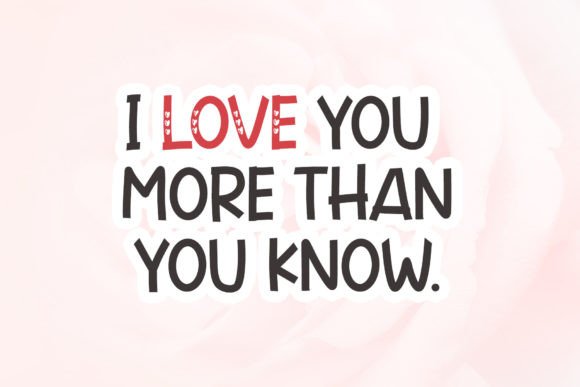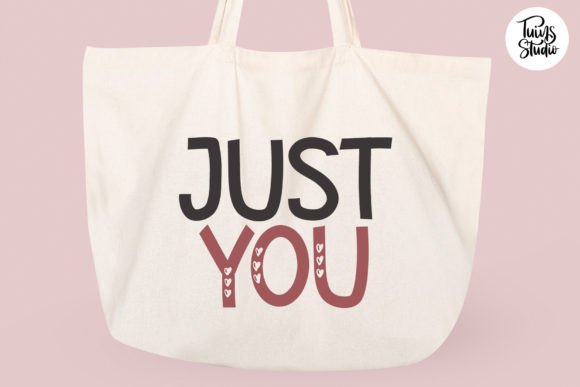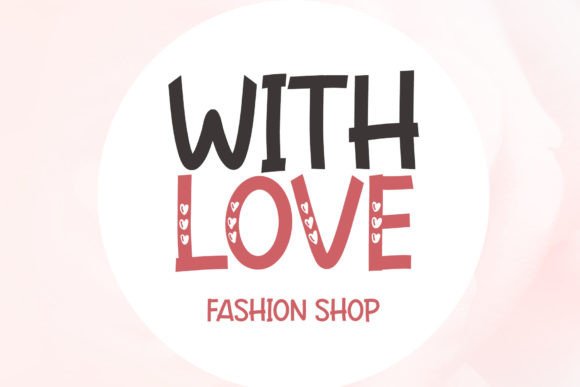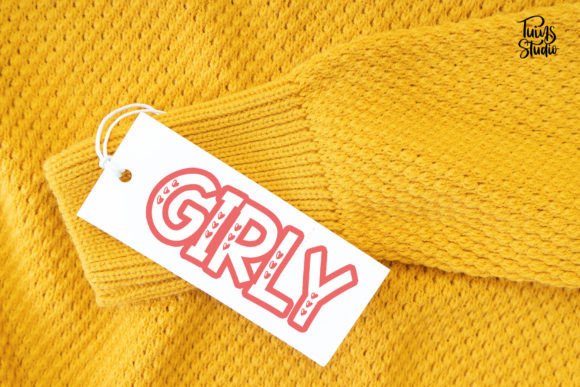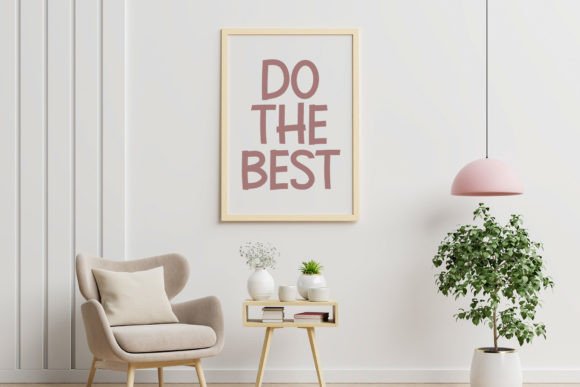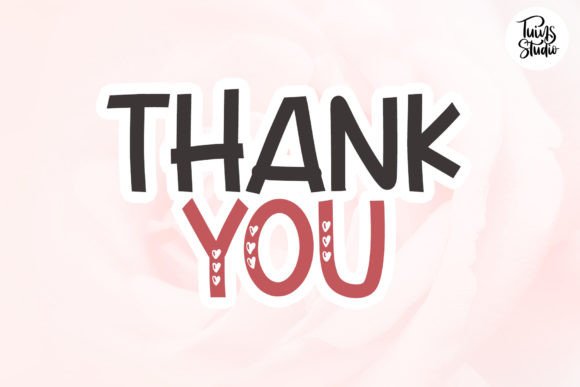
Introduction to Right Love Font
Have you ever stumbled upon the perfect font for a creative project, only to have it transform your entire design from ordinary to extraordinary? That’s exactly what the Right Love Font does – it brings a touch of whimsy and charm to any project, making it truly special. Whether you’re a seasoned designer or a crafty DIY enthusiast, this lovely font is sure to become a go-to design resource.
With its high-quality design and transparent background, the Right Love Font is perfect for a wide range of creative projects, from kids’ crafts and logos to greeting cards and packaging design. Its versatility and playfulness make it an invaluable asset for designers looking to add a personal touch to their work.
Key Features of Right Love Font
- High-quality font with transparent background for seamless integration into creative projects
- Includes 6 unique styles with varying levels of complexity, allowing for customization and creativity in your design
- Perfect for use in logos, branding materials, and other creative projects where a touch of elegance is required
Honest Review: Right Love Font
As a designer, I’m always on the lookout for high-quality fonts to elevate my creative projects. Recently, I stumbled upon the Right Love Font, and I’m excited to share my thoughts on this design resource.
- ✨ Unique and playful design aesthetic, perfect for adding a touch of whimsy to your projects.
- ✨ High-quality vectors and scalable designs make it suitable for various applications, from print to digital media.
- ✨ Transparent background allows for seamless integration with other design elements.
- ⚠️ Limited font styles and weights might not be suitable for complex design projects requiring a wide range of typography options.
- ⚠️ Some characters may not display correctly in certain font sizes or resolutions, which can be a concern for designers requiring precision.
Overall, the Right Love Font is a great addition to any designer’s toolkit, offering a fun and playful design element for creative projects. While it may have some limitations, its high-quality design and free download option make it a valuable resource for designers looking to add some personality to their work.
The Right Love Font is ideal for various creative projects, including wedding invitations, social media graphics, and branding materials. Its versatility and high-quality design make it a valuable design resource.